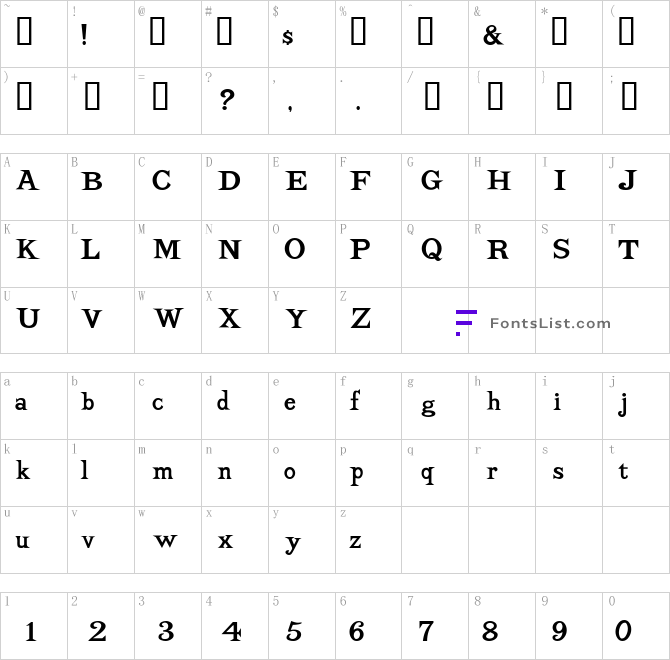
- Font Name:BaselineSSK
BaselineSSK.ttf is a very beautiful artistic font, BaselineSSK.ttf is widely used in the design and printing of various books and pictures,BaselineSSK.ttf has a strong visual impact,BaselineSSK.ttf is a commonly used font in newspapers, magazines and books, and is used in posters, e-commerce Poster design, store design, logo design, font design and other fields.BaselineSSK.